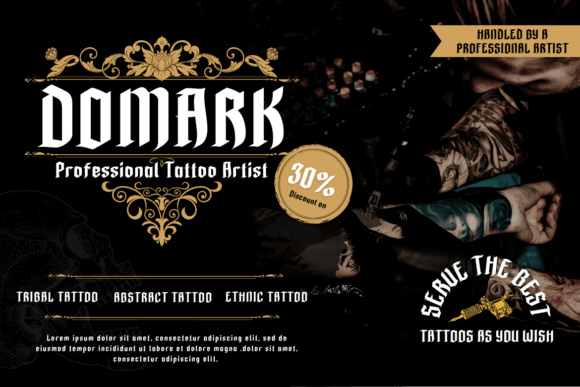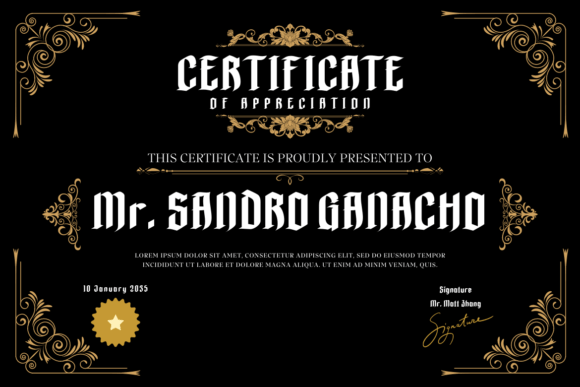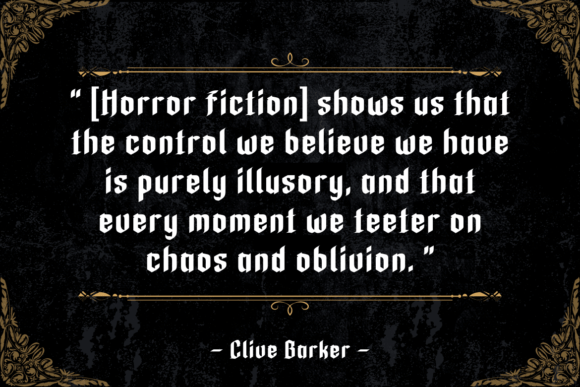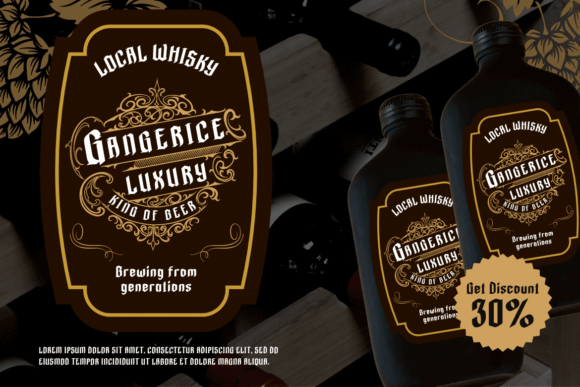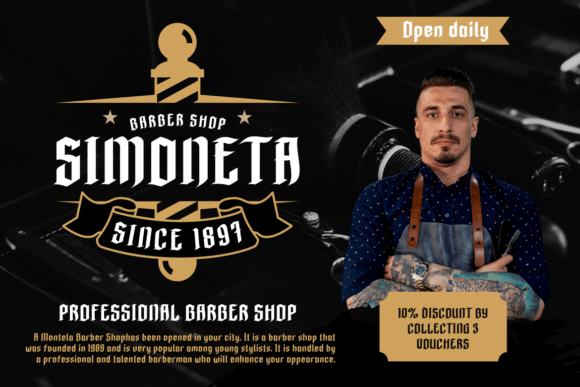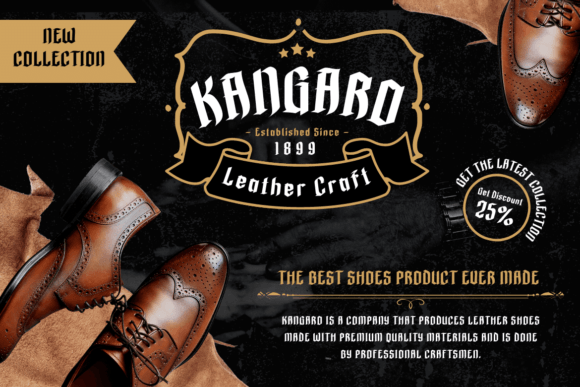
Introduction to Kirha Font
Kirha is a new blackletter font featuring a vintage and elegant style.
With a classic typeface, this font evokes confident elegance with striking details on each side of the lettering Use this font to enhance visual projects that require a bold classic look that exudes style, elegance, and strong personality.